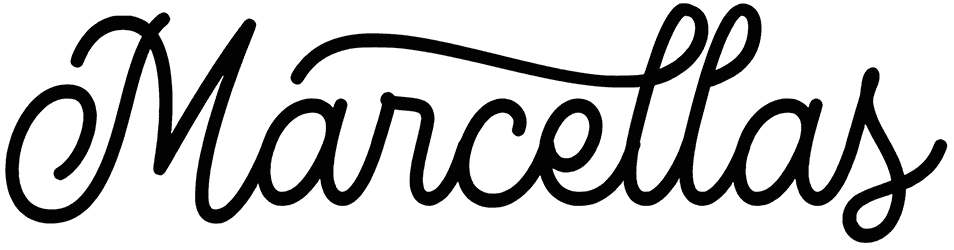
Marcellas Font
Let your words be so tastefully arranged with Marcellas and you’ll see why this swirly font is so popular. It’s perfect for modern branding designs and it just lands so well on your vintage projects as well. So either way, it’s a win-win to have this cursive font in your collection.
If you’re already good at this, you should be capable of picturing how awesome it’ll be as fashion logos, websites for leather products, childcare services posters, and more.